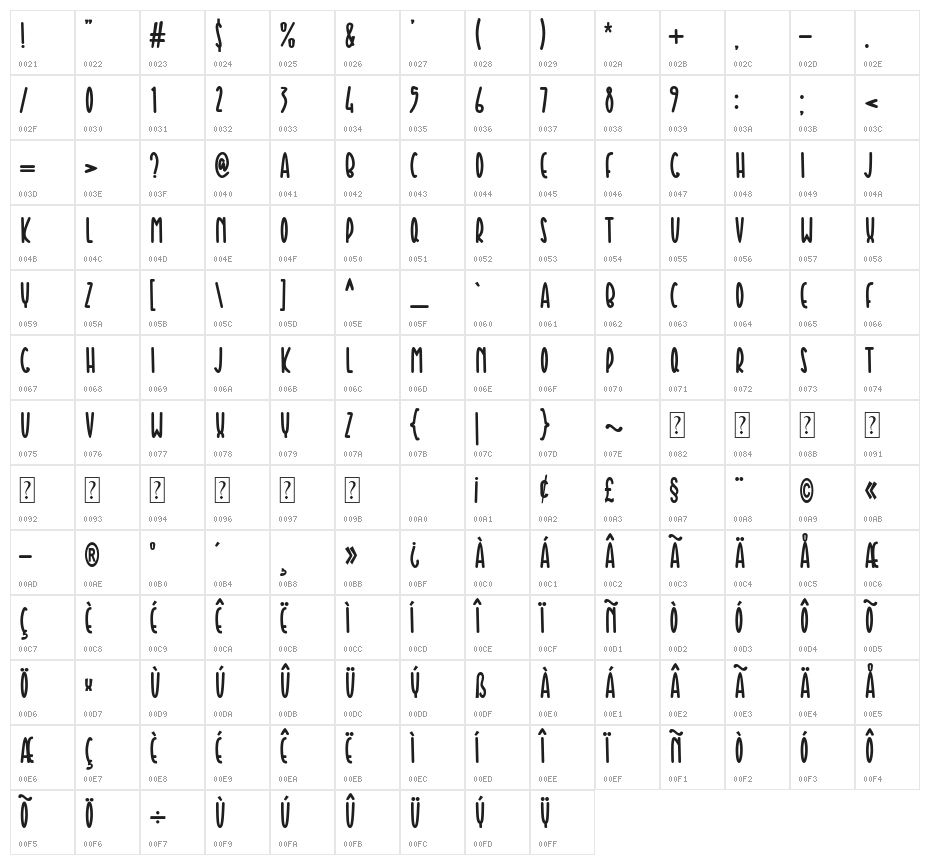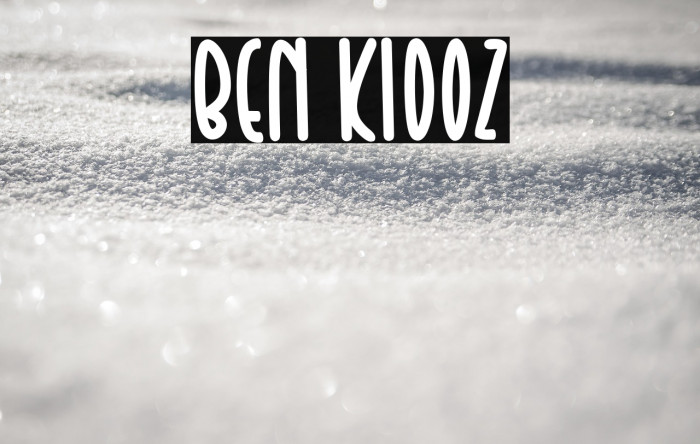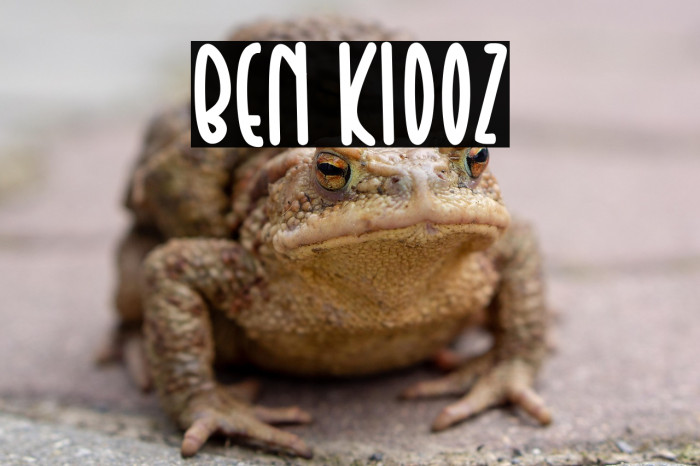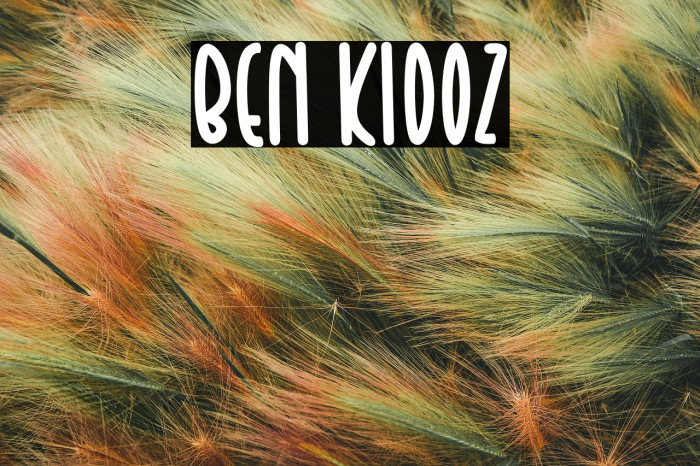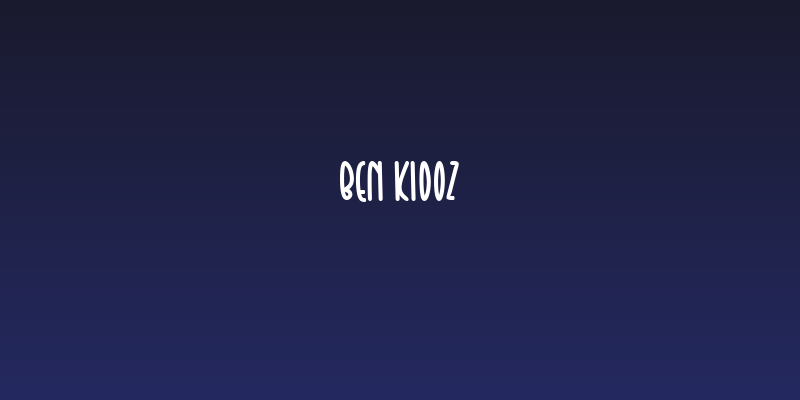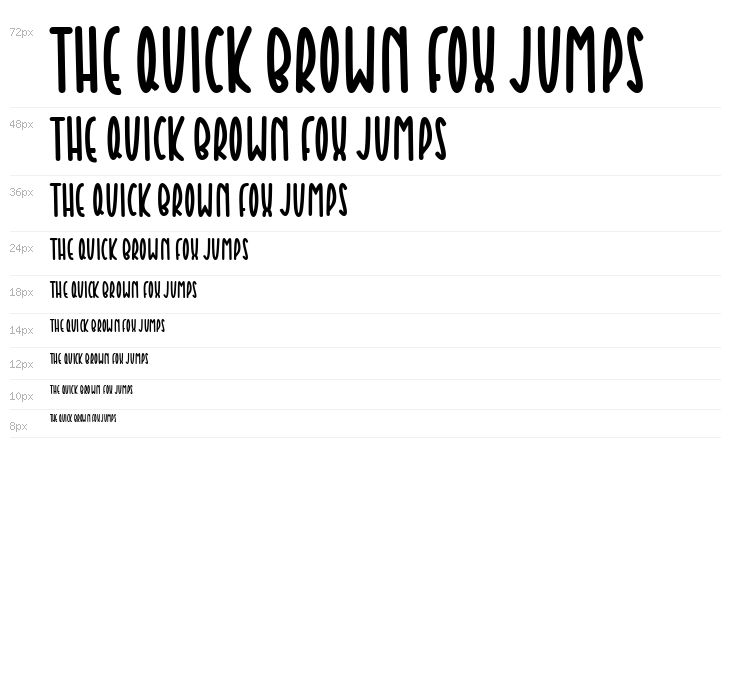
Ben Kidoz Font
Ben Kidoz Description
A playful and rounded handwritten font with a casual and friendly appearance.
| Use Case | Headlines, Informal text, Logos |
| Proposed Projects | Children's books, casual branding, playful posters. |